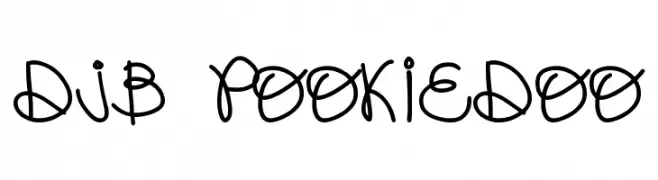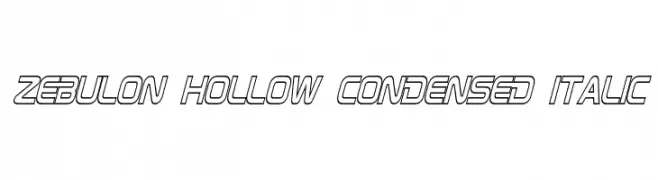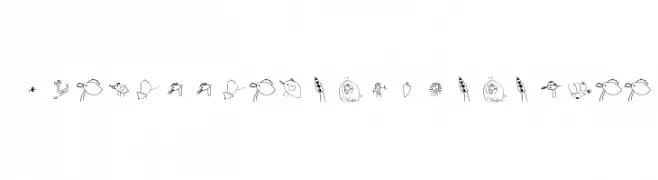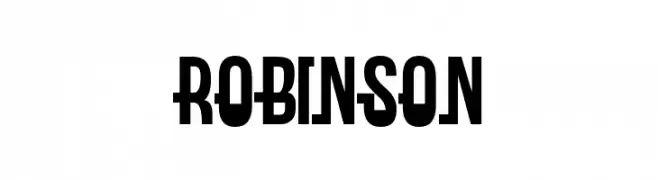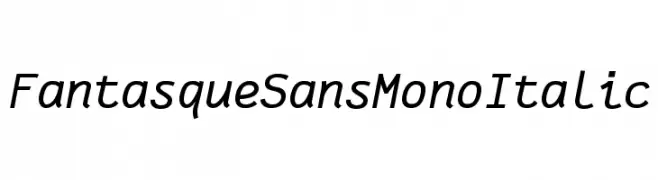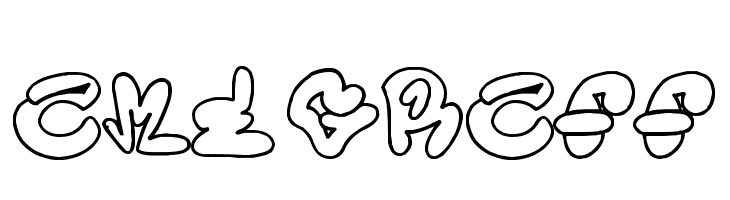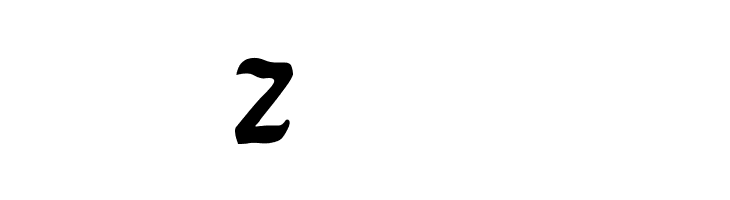
A playful, handwritten font with a whimsical and friendly style.
A playful set of hand-drawn doodles mimicking a child's artwork.
A bold, italic script font with high contrast and ornate flourishes.
A bold, geometric font with strong lines and modern appeal.
A bold, angular font with a geometric, hand-drawn style.
A bold, condensed display typeface with high contrast and geometric shapes.
A monospaced, italic font with a playful and modern style.
A bold, futuristic font with a three-dimensional, geometric design.
A bold, playful font with a hand-drawn, whimsical style.